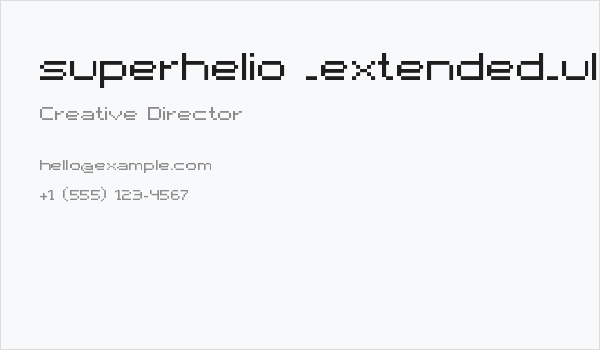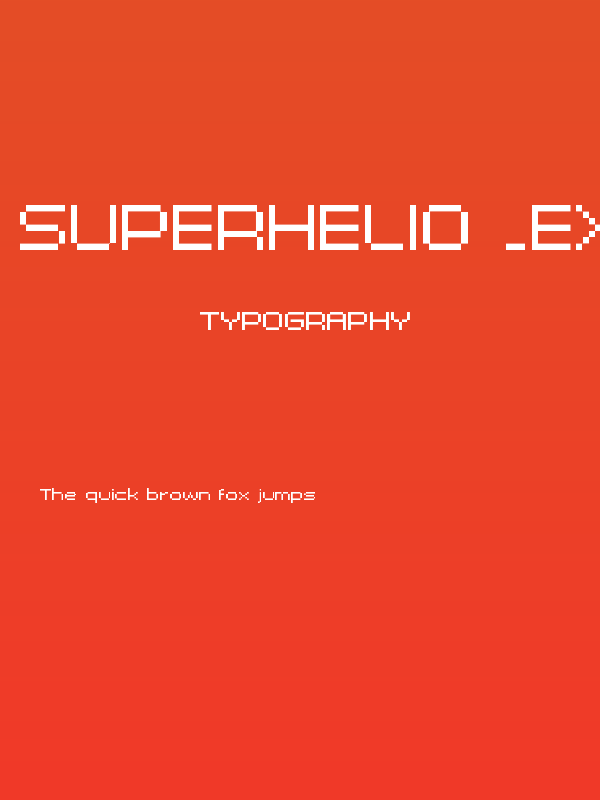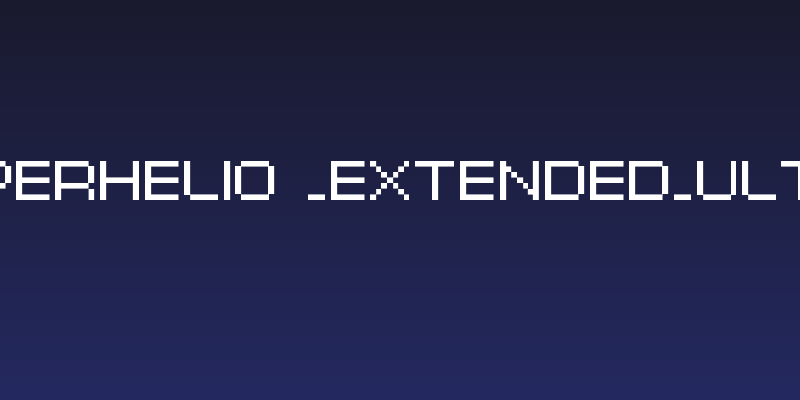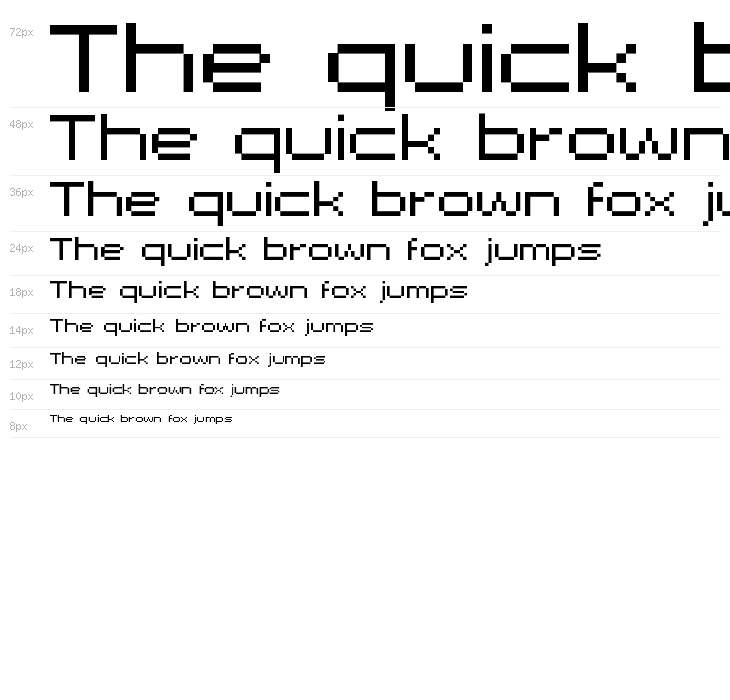
superhelio _extended_ultra Font
superhelio _extended_ultra Description
This font features a pixelated, grid-like structure that evokes a retro, digital aesthetic reminiscent of early computer graphics and video games. The characters are uniformly structured with a consistent stroke width, creating a blocky and geometric appearance. The uppercase and lowercase letters maintain a uniform height, contributing to a monospaced feel, although the font is not strictly monospaced. The numerals and special characters follow the same design principles, ensuring visual consistency across all glyphs. This font's distinct style is both nostalgic and modern, making it suitable for projects that aim to capture a tech-savvy or vintage digital vibe.
| Overall Style | Retro, Digital |
| Use Case | Logos, Headlines, Digital interfaces |
| Proposed Projects | Ideal for video game design, tech-themed posters, digital art projects, and retro-style branding. |